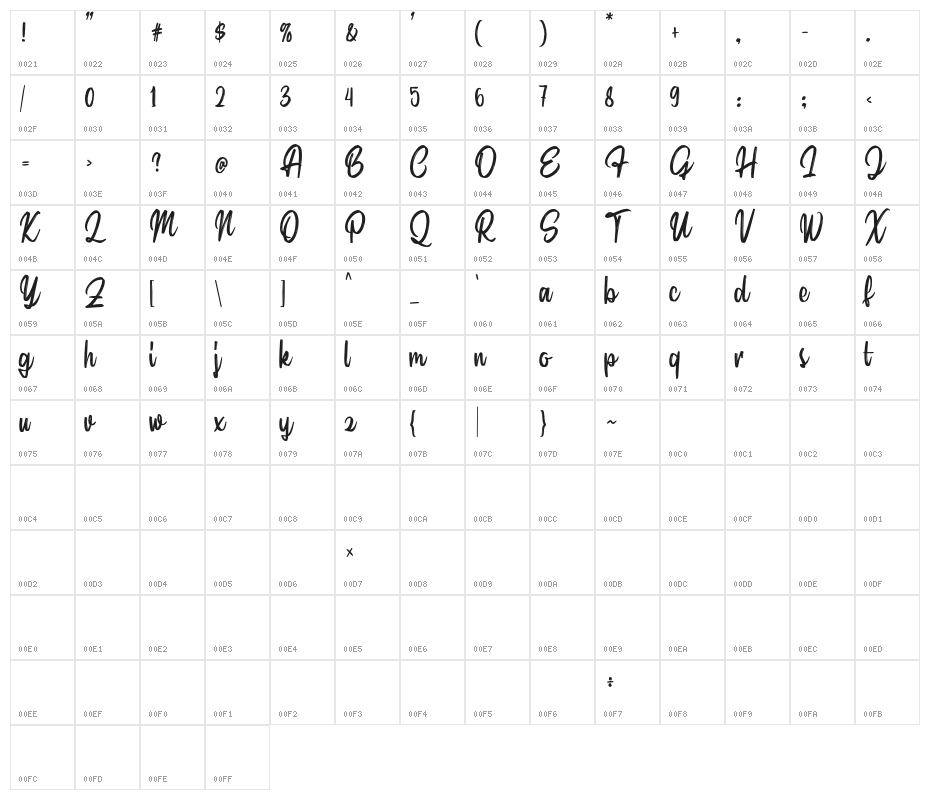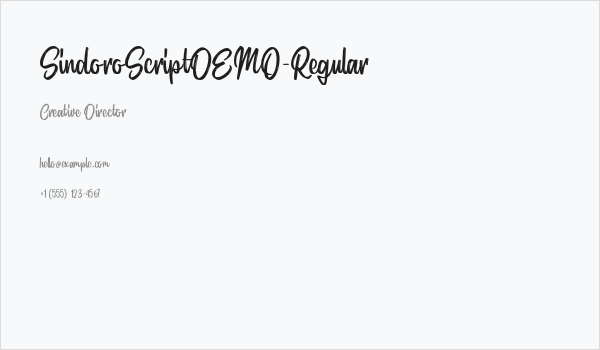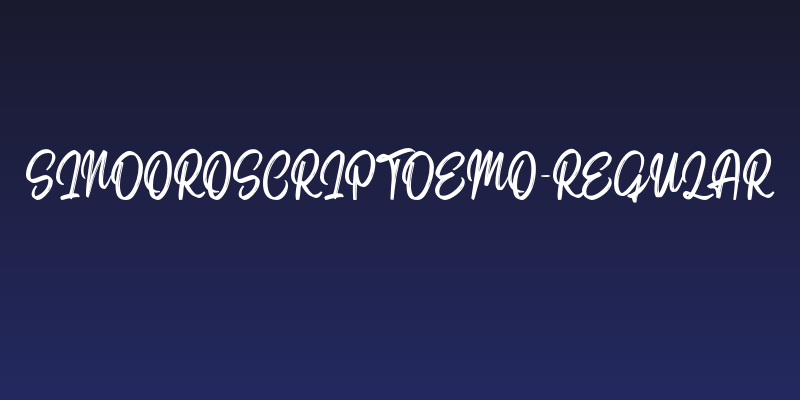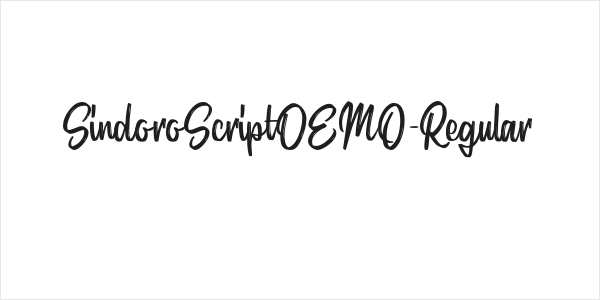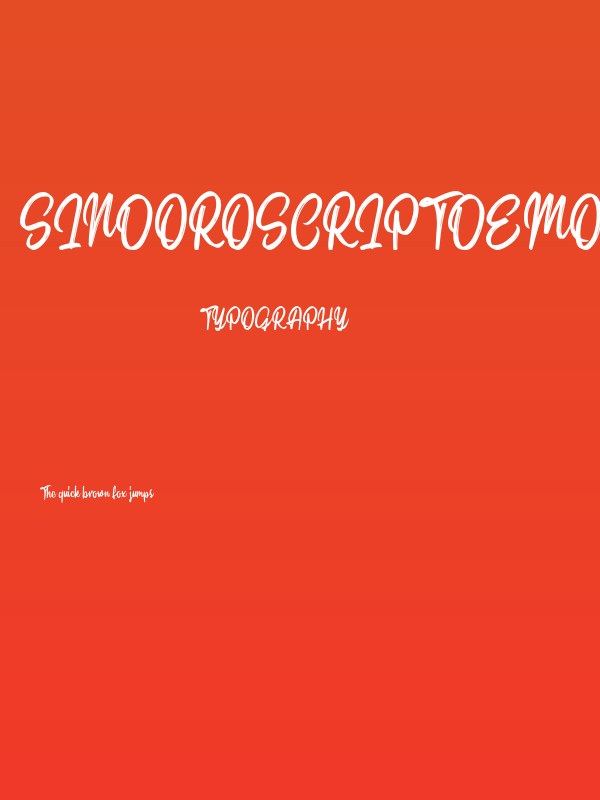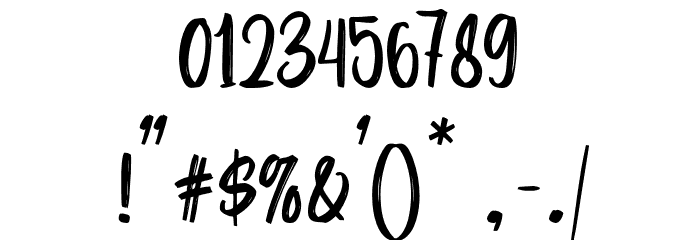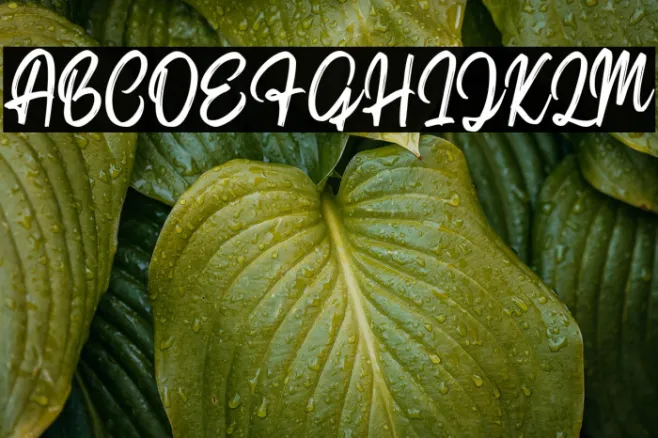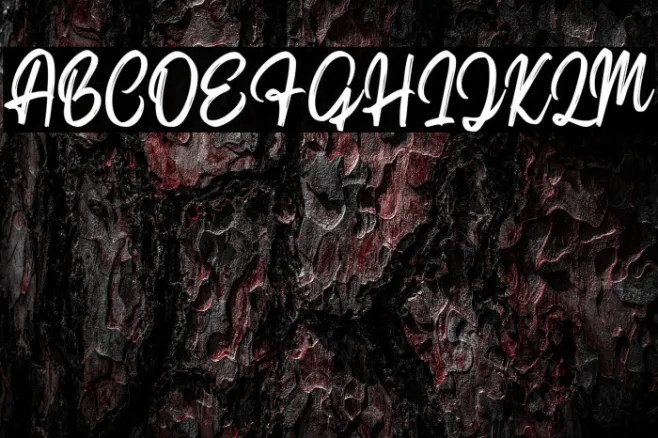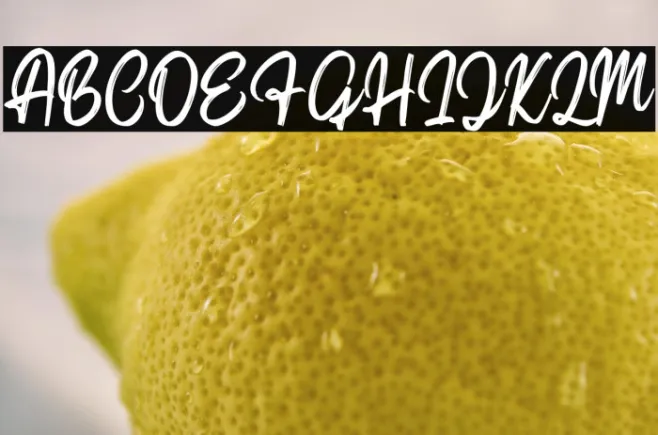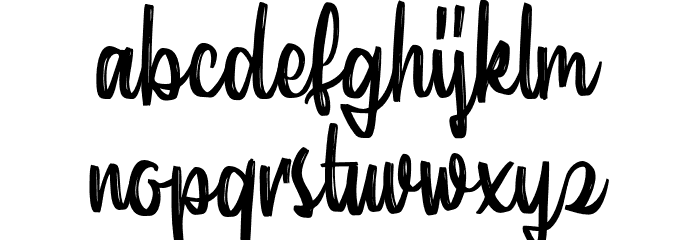
SindoroScriptDEMO-Regular Font
This script font exudes a lively and dynamic character, with its fluid, cursive strokes that mimic natural handwriting. The uppercase letters are bold and expressive, featuring a slight slant that adds to the font's energetic feel. Lowercase letters maintain a consistent flow, with smooth curves and loops that enhance readability while retaining a casual elegance. The numerals are clear and distinct, matching the overall style of the alphabet. Special characters are thoughtfully designed to integrate seamlessly with the letters, making this font versatile for various applications.
| Proposed Projects | Ideal for branding projects, invitations, greeting cards, and any design that requires a personal, handwritten touch. |